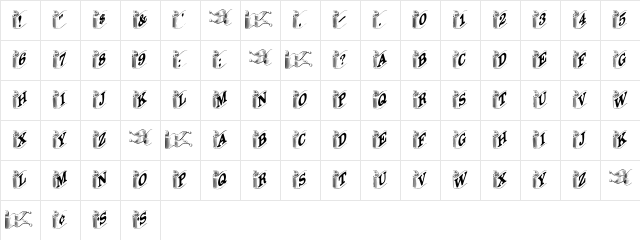
Davys-Ribbons Regular Free Font
Davys-Ribbons Regular
Complete Davys-Ribbons Regular glyph index. Displaying only characters natively supported by Davys-Ribbons Regular font.
Design Context for Davys-Ribbons
Davys-Ribbons is a composed and adaptable typeface that performs quietly and consistently across a wide range of design contexts.